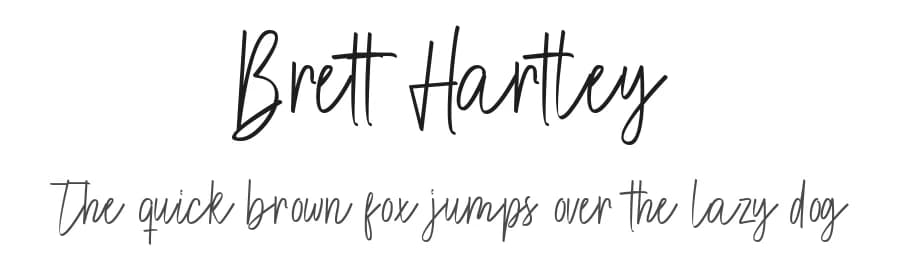
About Brett Hartley Font
Brett Hartley Font is a script font that shines as a display or heading face. Pair it with a clean sans-serif or serif font for body text β the contrast creates a clear hierarchy while the two styles stay balanced and easy to read.
Brett Hartley Font